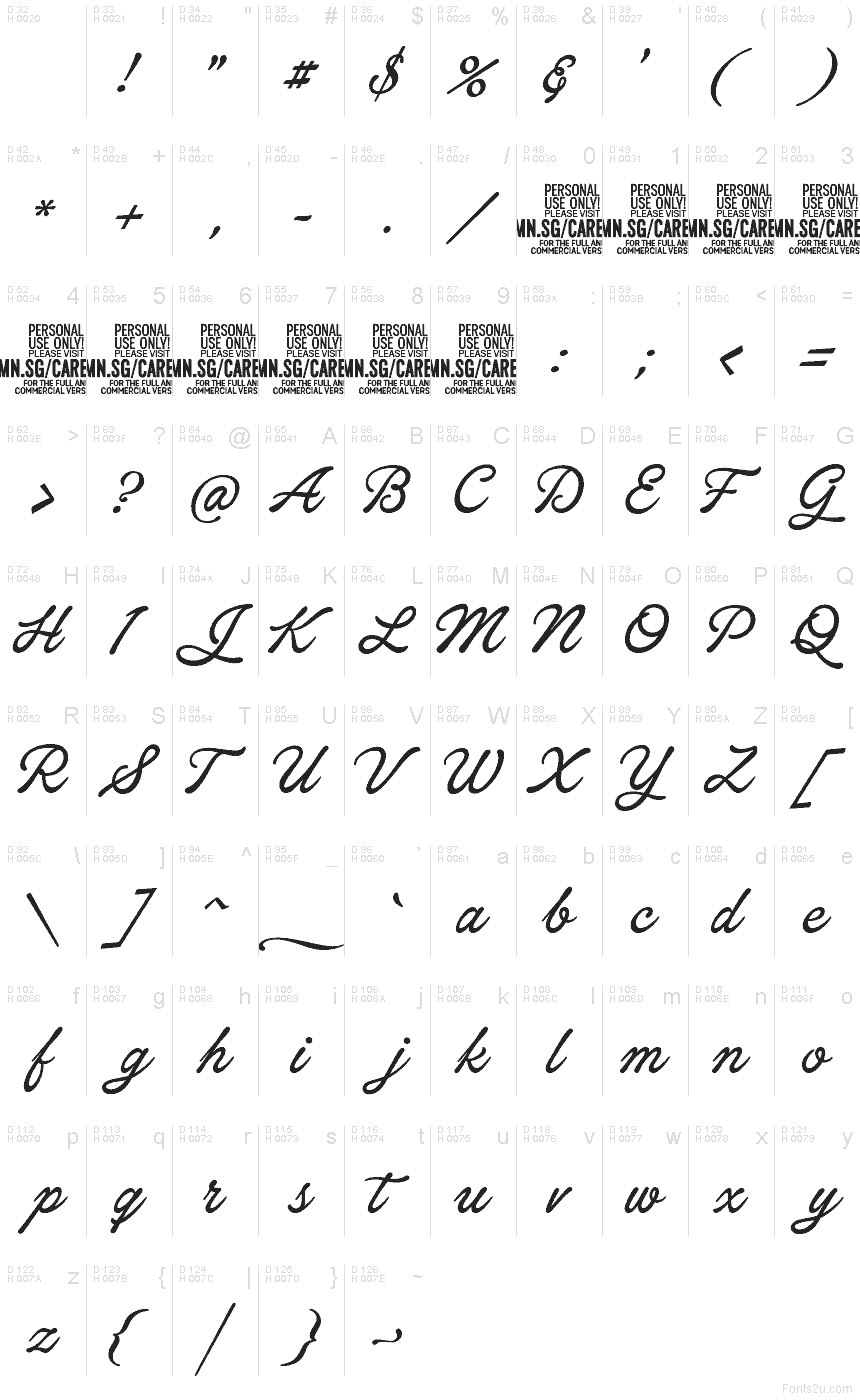
Careera Script PERSONAL USE Regular
Careera Script font by Mans Greback is a handwritten font that offers artistic elegance along with seamless flow in each of its characters. Bringing back memories of the charming bloody signatures on books, it features casual sophistication along with vintage charm and design. The characters are written in cursive, connected via a flowing line that makes all possible connections work.
You can use this free calligraphy typeface in product labeling and packaging designs for any type of product, feminine or otherwise masculine. It works great for cosmetics branding design including logos for perfumes, beauty creams, makeup products etc. Use Careera Script on headings.